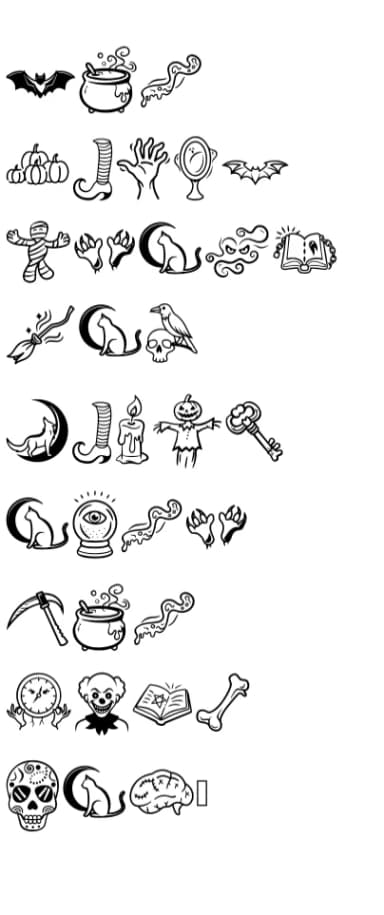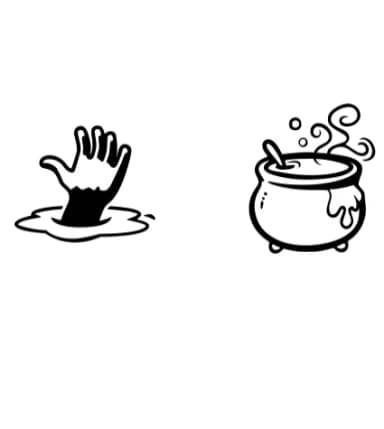
This is a font that skips the refined approach and leans straight into mischievous chaos. Hallospook, designed by LUXURY T-SHIRT STORE, is a dingbat collection that trades polish for personality. The sketchy, cartoon-style artwork pulls from genuine Halloween imagery: ghosts with distinct expressions, jack-o-lantern variations in different moods, and playful spooky elements that feel fun rather than genuinely frightening. Each character has its own hand-drawn feel, which sounds chaotic on paper but actually works beautifully when you're layering it with other design elements across a layout or a physical product like packaging.
This dingbat set earns its weight for Halloween party invitations where you want visual personality beyond text alone, pumpkin-themed greeting cards you'd send for fall celebrations, seasonal t-shirt graphics that capture that homemade aesthetic, or DIY trick-or-treat bag labels that visitors actually want to keep. The artwork also translates well to haunted house event posters or fall market vendor signage if you're looking for that hand-sketched vibe. You get both OTF and TTF formats, which integrate smoothly in Procreate and across the Affinity Suite (Designer and Photo included), making it easy to work across your entire design workflow.
Hallospook Font is a versatile dingbats font that works for both headings and body text. Pair it with a contrasting sans-serif or serif font to add visual interest and a clear distinction between titles and body copy.
Hallospook Font